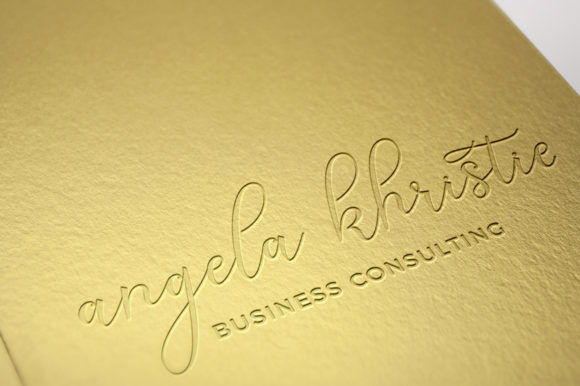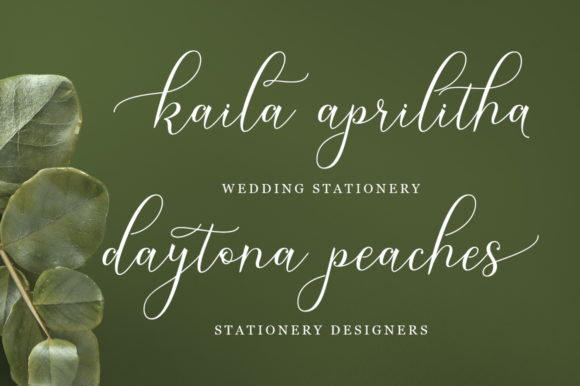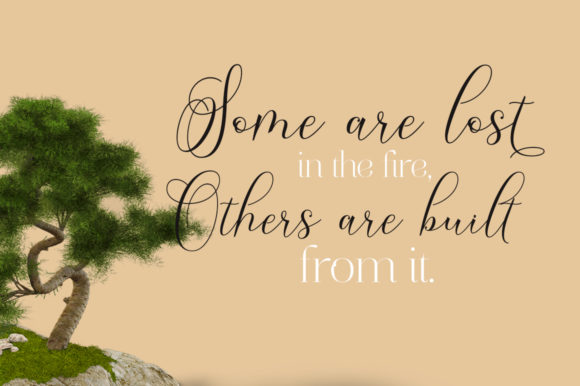
About Soganest Font
Soganest is an incredibly elegant and delicate handwritten font. Its unique and flowing style makes this font fit for your most precious creative ideas. Add it to your wedding invitations, greeting cards, birthday invitations or anything that you wish to receive a timeless feel. This font is PUA encoded which means you can access all of the glyphs and swashes with ease! It features a varying baseline, smooth lines, gorgeous glyphs and stunning alternates.